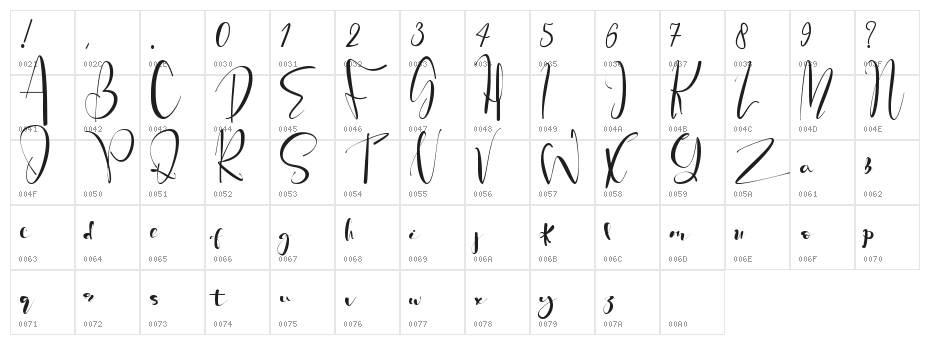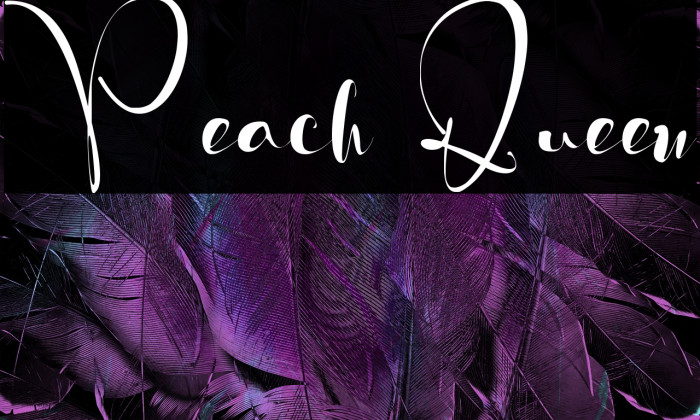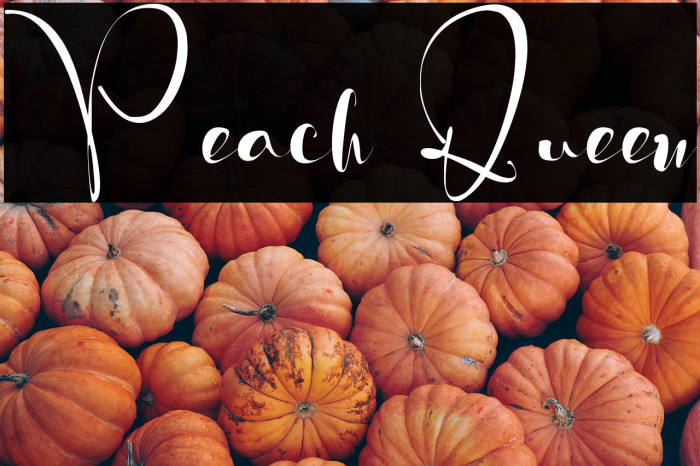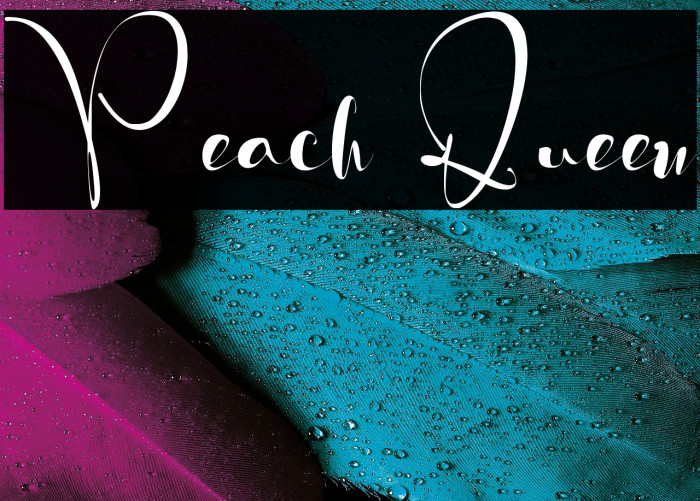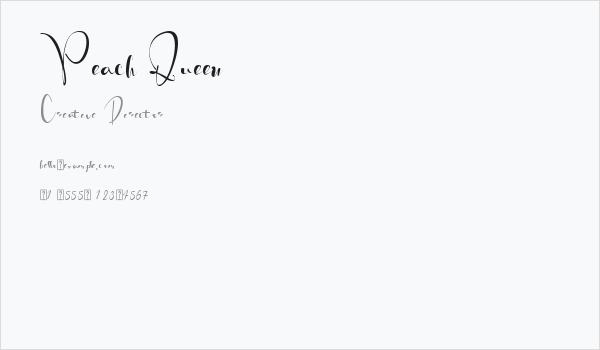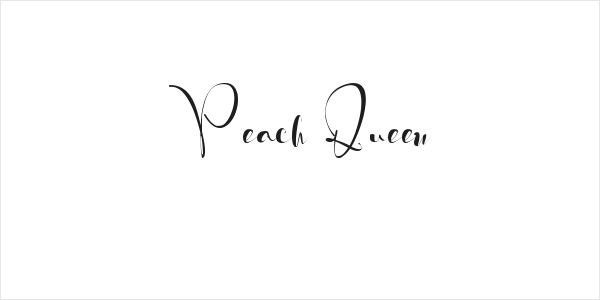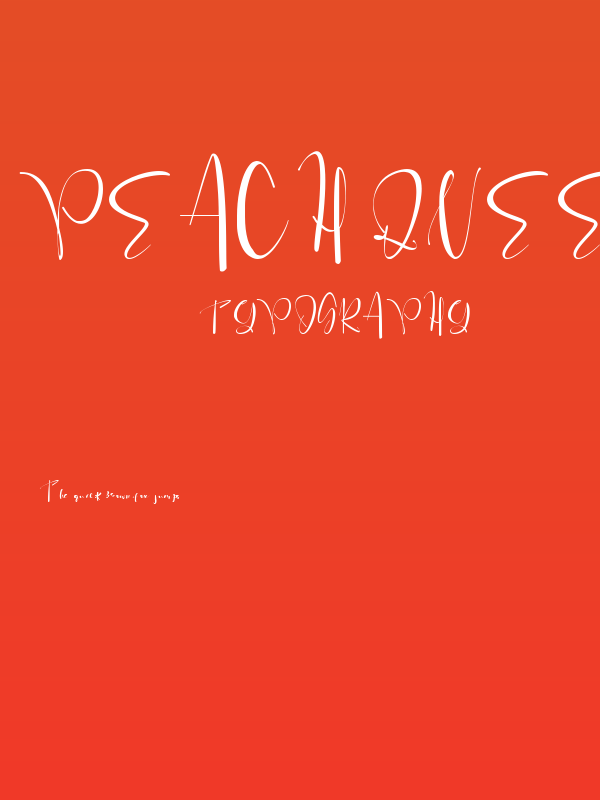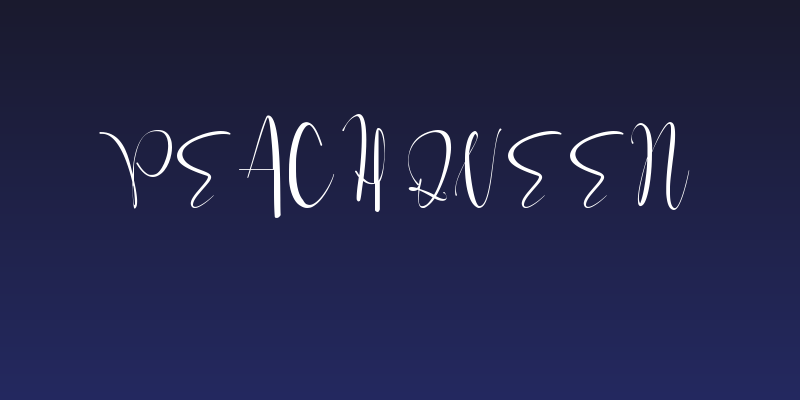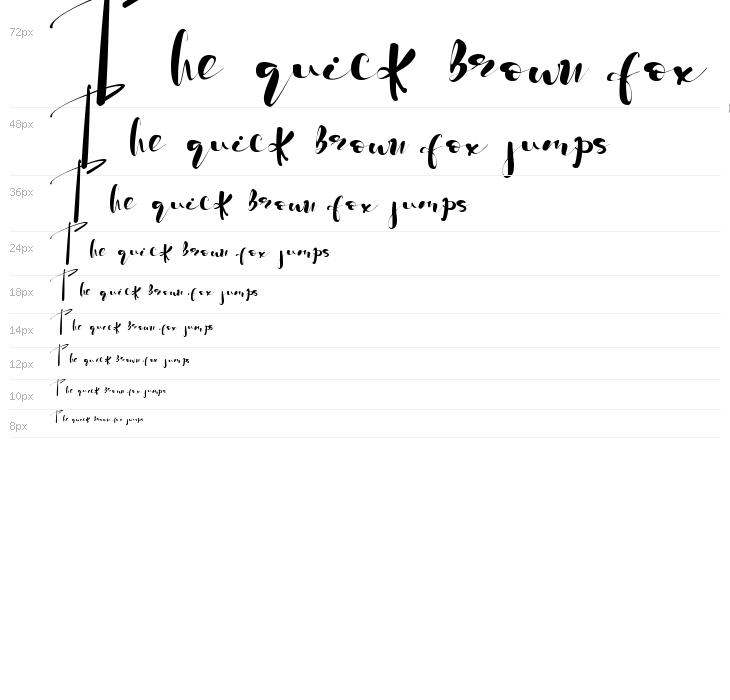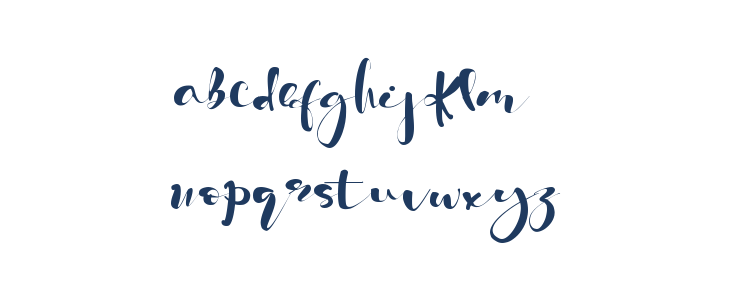
Peach Queen Font
Peach Queen Description
This font features a dynamic and expressive script style with a handwritten appearance. The uppercase letters are tall and elegant, with sweeping curves and varying line thickness that add a sense of movement and grace. The lowercase letters maintain a consistent flow, with some characters featuring unique loops and flourishes that enhance the font's artistic flair. The numbers are bold and clear, maintaining the same fluid style as the letters. Special characters are creatively integrated, adding to the font's overall charm and versatility. This font is perfect for projects that require a personal touch or a creative, artistic vibe.
| Proposed Projects | Ideal for wedding invitations, greeting cards, branding, and artistic projects. |